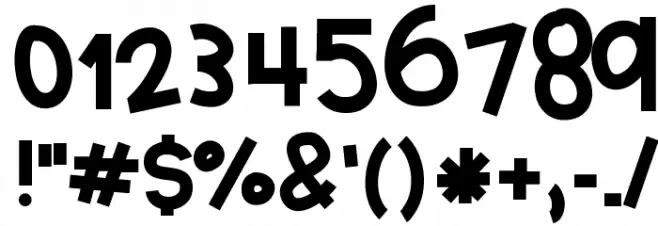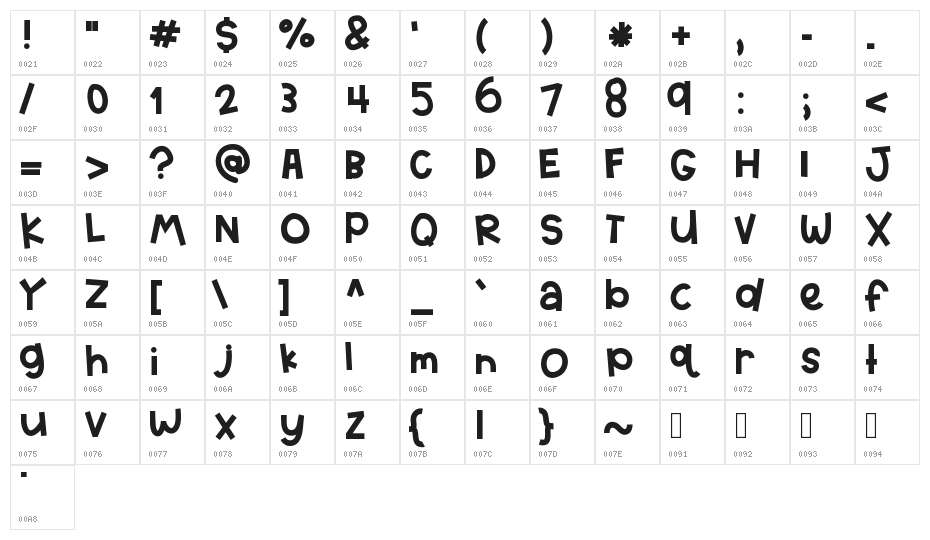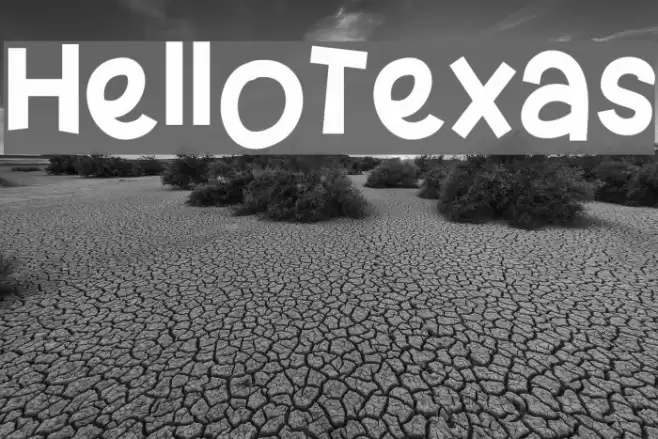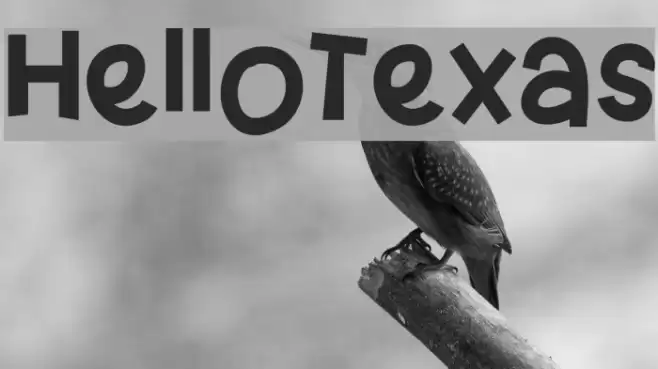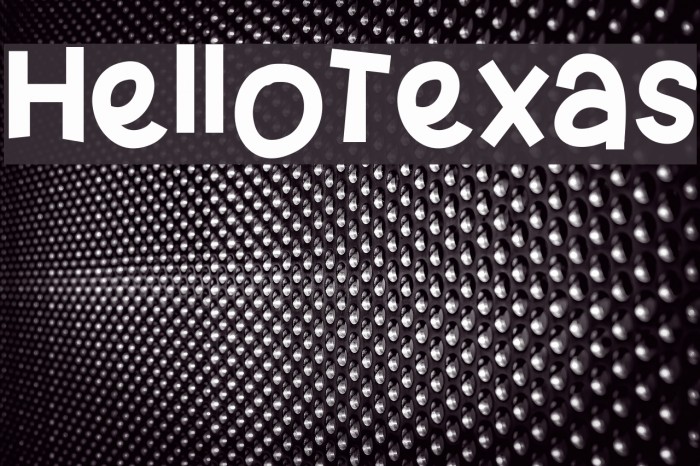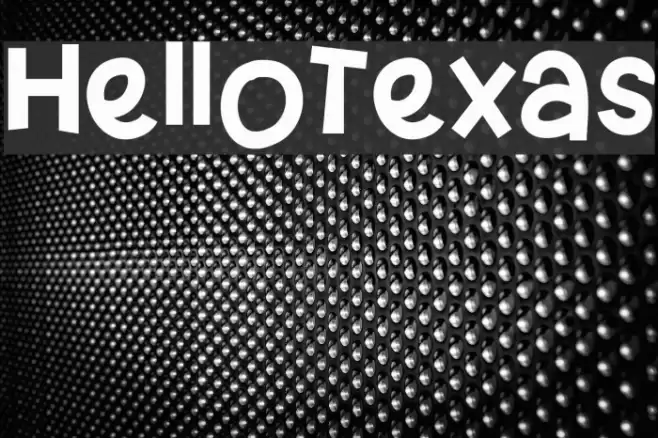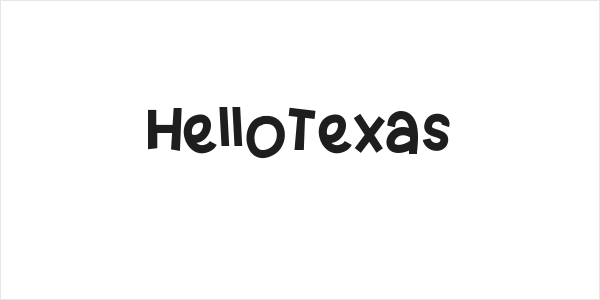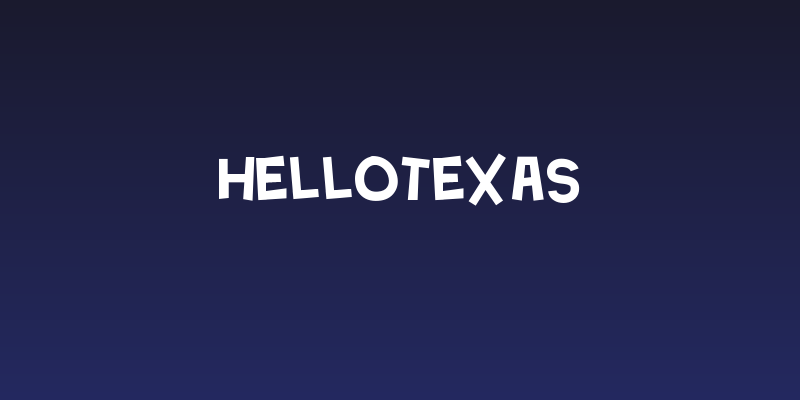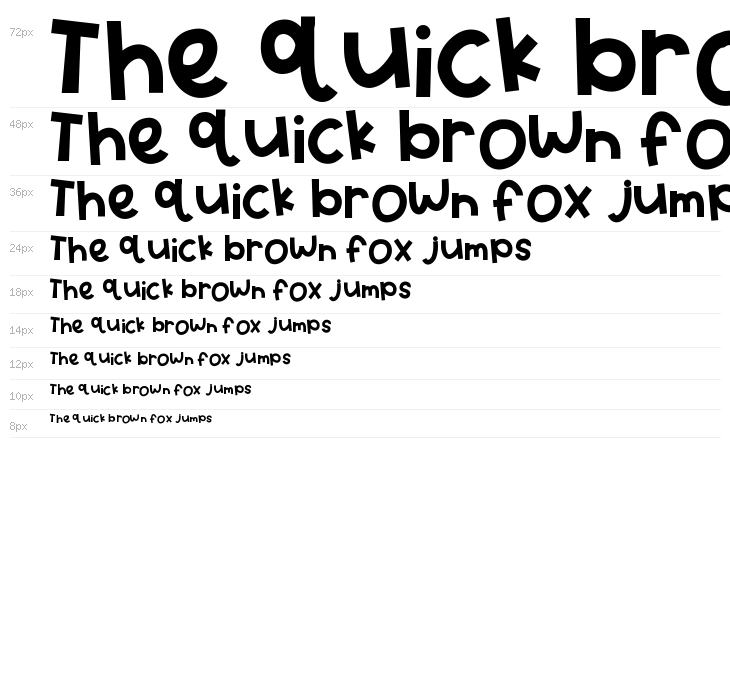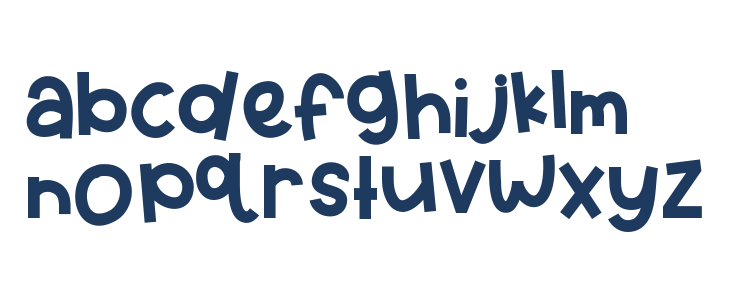
HelloTexas Font
HelloTexas Description
This font features a playful and bold design with a hand-drawn aesthetic. The characters are slightly irregular, giving it a whimsical and informal feel. The uppercase and lowercase letters maintain a consistent style, with rounded edges and a slight tilt that adds to the casual vibe. The numbers and special characters follow the same playful theme, making it suitable for creative and fun projects. The font's boldness ensures readability while maintaining its unique character.